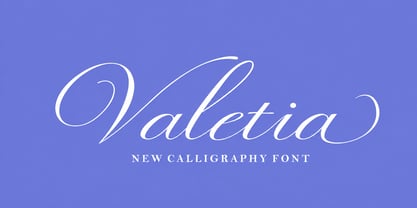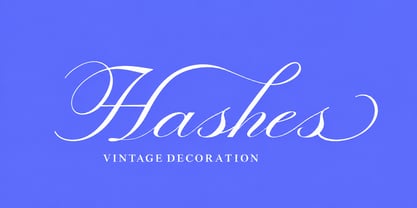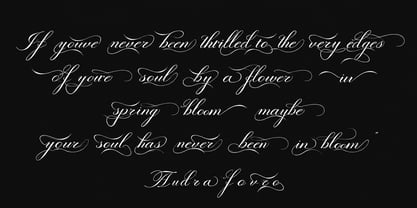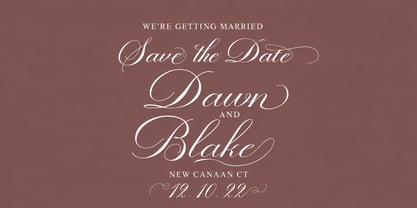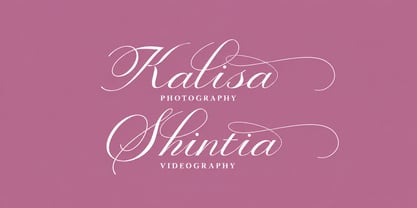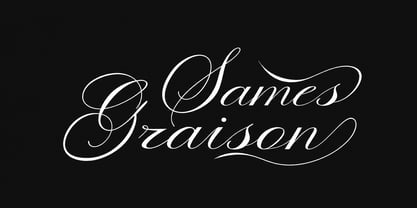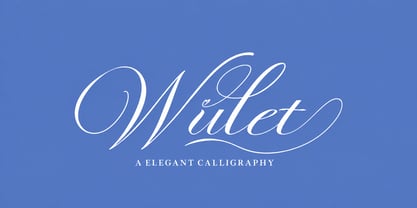
Valetia
by Abbastype
The Valetia Font Family was designed by Muhammad Abbas and published by Abbastype. Valetia contains 96 styles and family package options. More about this family
A modern and elegant script font designed to bring a stylish, expressive, and sophisticated touch to every project. Featuring smooth flowing strokes, graceful letterforms, and a contemporary handwritten feel, this font is perfect for branding, logos, wedding invitations, social media designs, packaging, fashion projects, and creative typography.
Its refined yet natural character makes it versatile for both elegant and casual designs, adding a personal and memorable visual identity to your work.